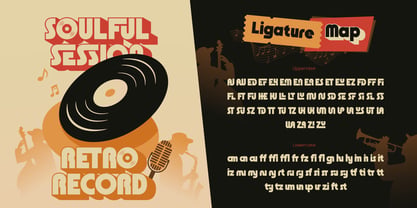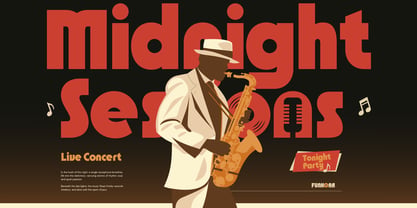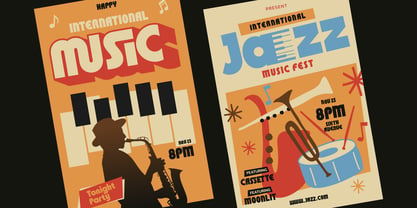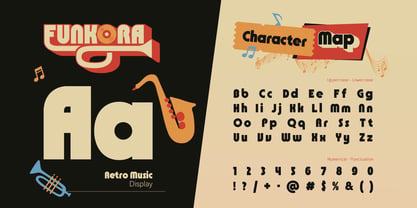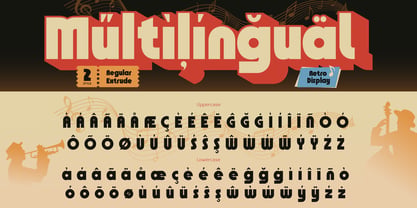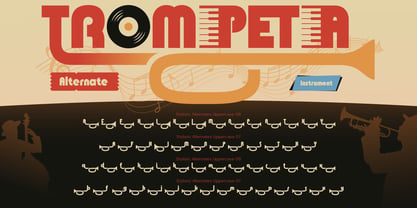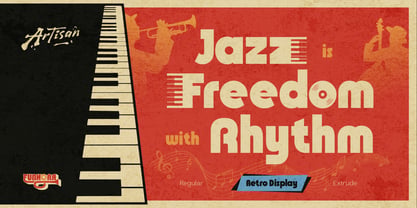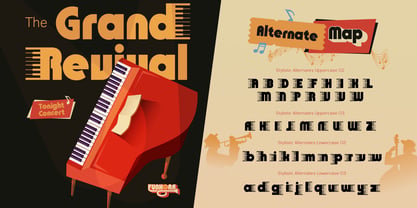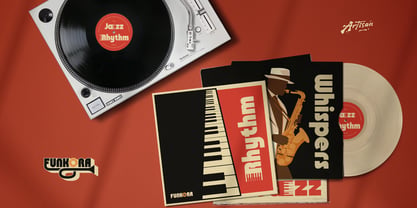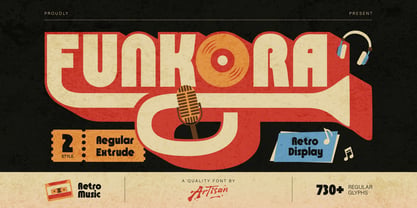
Funkora
The Funkora Font Family was designed by Meidy Meichico and published by Artisan Themes. Funkora contains 2 styles and family package options. More about this family
There’s something magical about the sound of vinyl spinning, the warm crackle of jazz in the air, and neon lights glowing through the night. Funkora was born from that moment — inspired by retro music culture, funky rhythms, and the timeless groove of classic records. Funkora is a bold retro display font that brings strong vintage vibes with a modern twist. Designed with chunky letterforms, smooth curves, and playful rhythm, this font instantly captures attention and delivers a nostalgic yet fresh look. Perfect for designs that want to stand out loud and proud, Funkora is your go-to choice for anything music-inspired, retro-themed, or creatively bold. Perfect for: music poster & album covers, retro branding & logos, event flyers & concert visuals, merchandise (t-shirt, stickers, etc), social media graphics, vintage & funky design projects